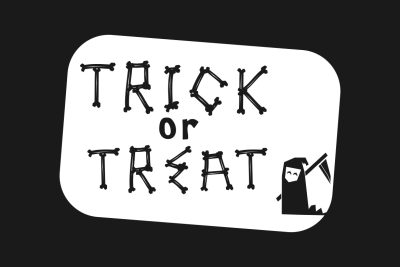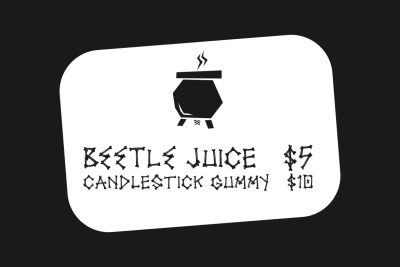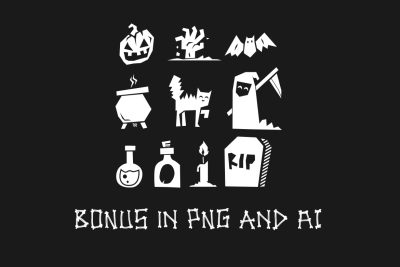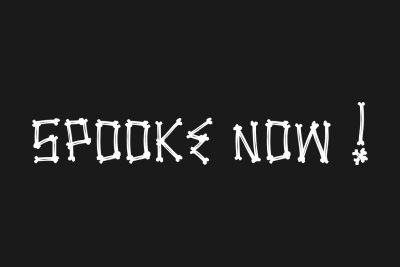
Scary Font Spookybones brings a delightful mix of spooky and playful vibes, making it the perfect choice for projects that require a touch of Halloween magic. Its creative design, inspired by bone structures, delivers a sense of quirkiness while maintaining an eerie edge. Whether you’re crafting party invitations, social media posts, or logos, Spookybones will give your text a unique personality that stands out.
Additionally, this font excels in combining simplicity with character. The clean yet skeletal letterforms make it both readable and visually engaging. From childrenโs Halloween events to edgy branding, Scary Font Spookybones is versatile enough to cater to a wide array of audiences. It strikes the ideal balance between fright and charm, ensuring your designs are memorable and eye-catching.
Why Scary Font Spookybones is a Must-Have
Scary Font Spookybones isnโt just about the themeโitโs about versatility and impact. Its playful bone-like structure works well across various design mediums, including digital content and print materials. Perfect for posters, merchandise, or even haunted house signage, this font adapts to your needs with ease.
One of the standout features of Spookybones is its ability to resonate with both young and mature audiences. For example, its “cute yet creepy” appeal makes it ideal for kids’ Halloween crafts, while its darker tones are perfect for a more dramatic, horror-inspired aesthetic. Moreover, the font includes unique stylistic touches that add a sense of whimsy and detail to your projects.
Elevate Your Halloween Designs
Scary Font Spookybones is more than just a typefaceโitโs a design tool that enhances your creative storytelling. Its skeleton-inspired letters instantly set the tone for spooky-themed designs, making it a favorite among designers who want to evoke both fun and fear.
Additionally, Spookybones pairs beautifully with other elements like spooky illustrations or vibrant Halloween colors. This compatibility ensures your designs are cohesive and visually appealing. Whether youโre creating for personal projects or professional campaigns, Spookybones delivers a polished, creative edge.